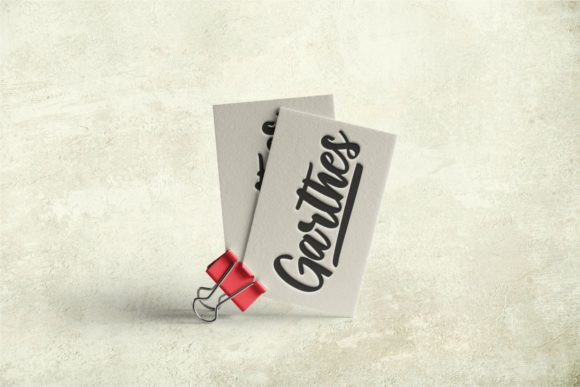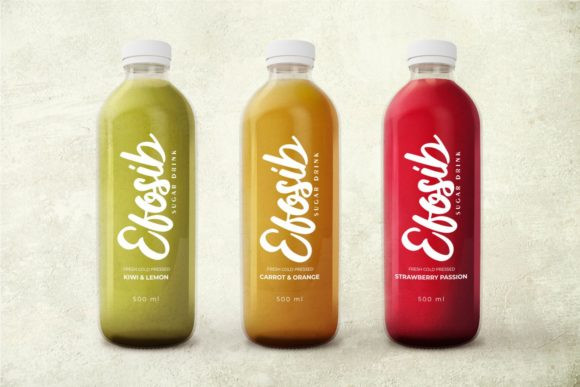
Hatchen Font
Hatchen is a bold and brushed handwritten font. It is defined by smooth curves and is perfect for fashion branding or editorial designs. Add it confidently to your projects, and you won’t be disappointed.